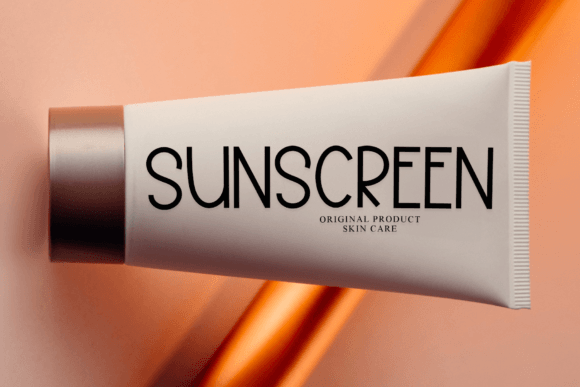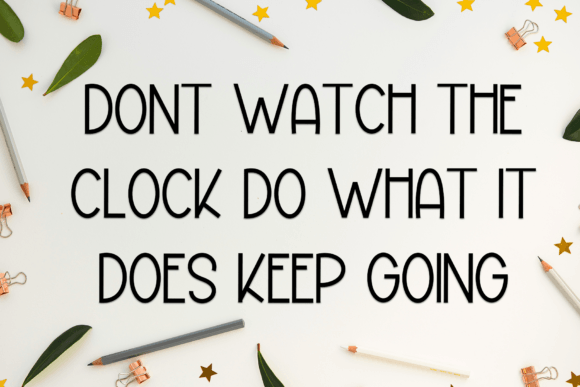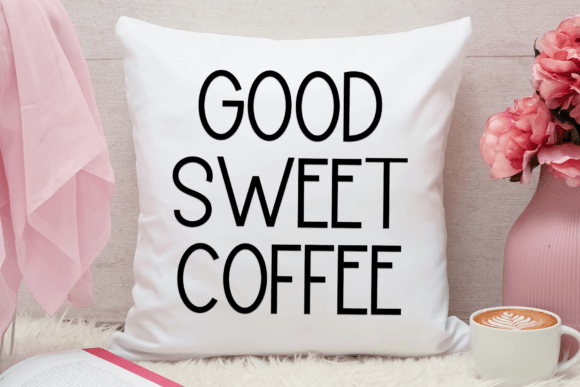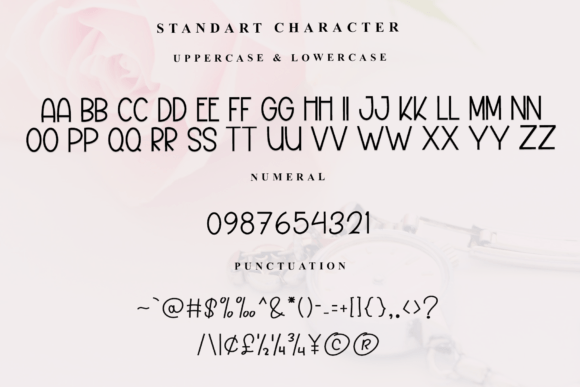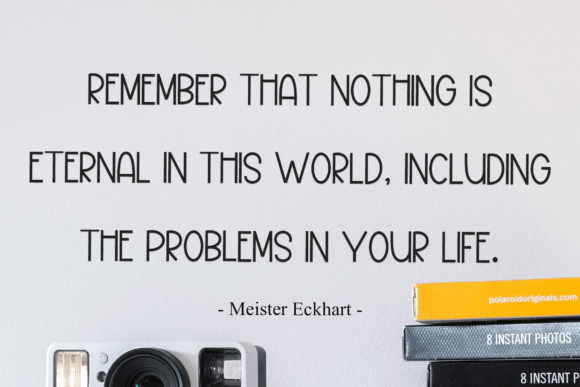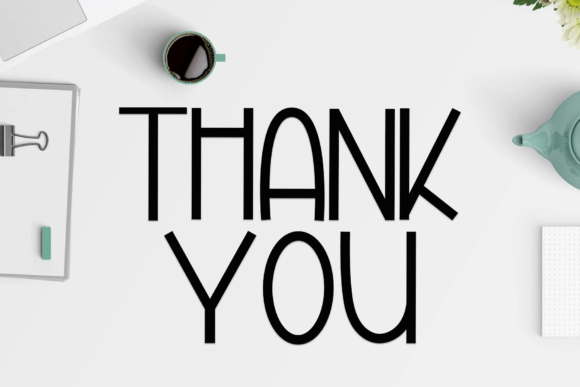
The Boho Home Font: A Designer’s Dream Come True
I’ll never forget the moment I stumbled upon the perfect font for a client’s wedding invitation project. I had been searching for what felt like hours, trying out font after font, but nothing seemed quite right. That was until I discovered the Boho Home font. Its elegant, modern look and refined handwritten style immediately caught my eye, and I knew I had found the one. In this article, I’ll share my experience with the Boho Home font, its features, and how to make the most of it in your designs.
So, what makes the Boho Home font so special? Let’s dive into the good stuff and a few quirks I’ve encountered.
- ✨ Elegant and Modern Look: The Boho Home font has a classy, sophisticated feel that’s perfect for a variety of design projects, from logos and branding to invitations and social media posts.
- ✅ Versatile: Whether you’re working on a wedding design, a craft project, or a professional branding campaign, the Boho Home font is a versatile choice that can adapt to any style.
While the Boho Home font is incredibly versatile and beautiful, there are a few things to keep in mind:
- ⚠️ Glyph Overload: With so many glyphs and ligatures available, it can be overwhelming to navigate and choose the right ones for your project. Take some time to explore the font and get familiar with its features.
- 🤔 Pairing with Other Fonts: As with any elegant font, pairing the Boho Home font with other fonts can be a bit tricky. Make sure to choose fonts that complement its style and don’t overpower it.
The Story Behind Boho Home
The Boho Home font was designed with the intention of creating a beautiful, elegant, and modern handwritten font that would cater to a wide range of design needs. Inspired by the bohemian lifestyle and the desire for home decor that exudes warmth and personality, the font’s creator aimed to produce a typeface that would bring a touch of sophistication and whimsy to any design project.
Q: What is the Boho Home font best used for?
A: The Boho Home font is versatile and can be used for a variety of design projects, including logos, branding, invitations, stationery, wedding designs, social media posts, and more.